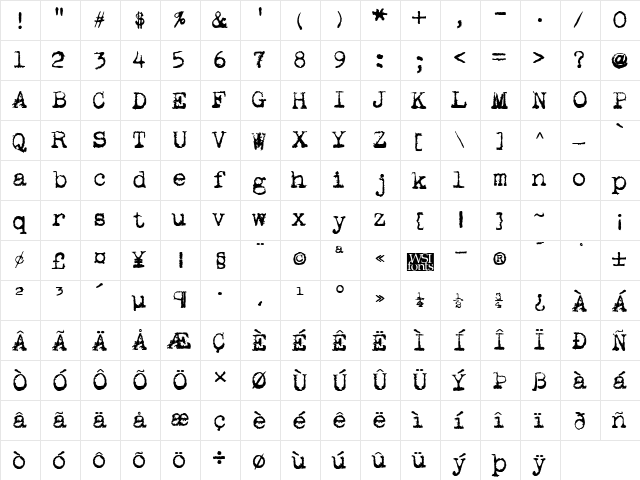
Apoplex Bold
Design Context for Apoplex Typeface
Apoplex is a composed and adaptable typeface that performs quietly and consistently across a wide range of design contexts. The heavy weight commands attention and anchors typographic hierarchies.